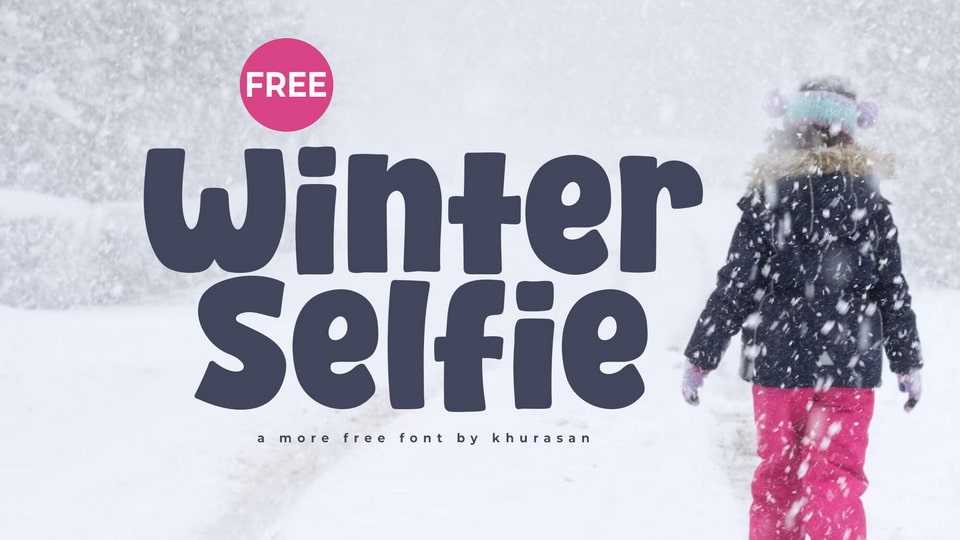
Download Winter Selfie font, a bold, playful, and quirky hand-crafted cartoon font bursting with personality with its chunky letterforms, lively curves, and whimsical details.